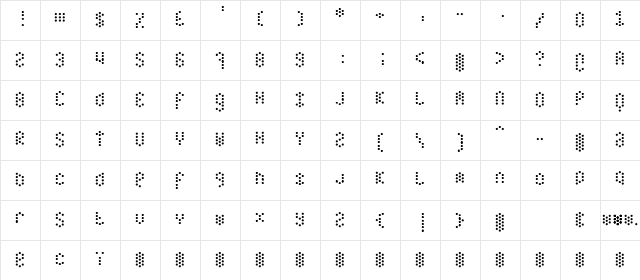
honey Light Font Preview
honey Light
honey Light Font Details
Design Context for honey Typeface
honey is a composed and adaptable typeface that performs quietly and consistently across a wide range of design contexts. The delicate stroke weight brings airiness and refinement to layouts.